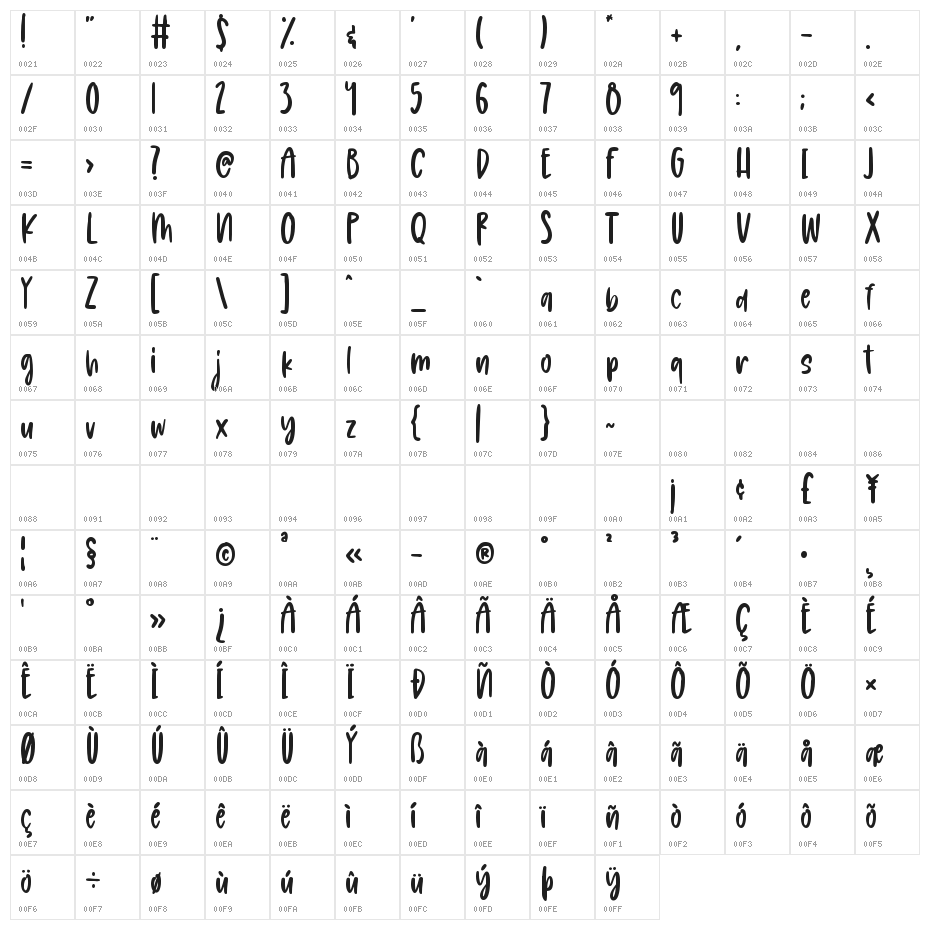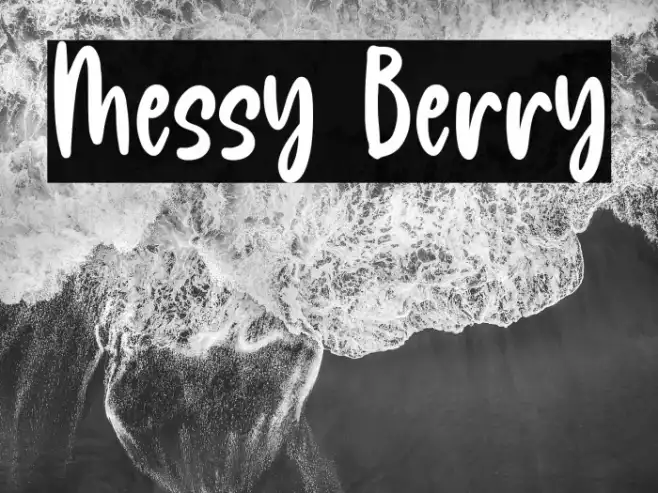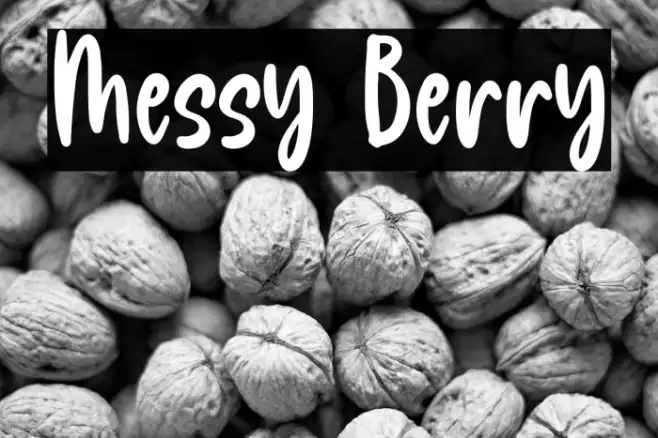
Messy Berry Font
Messy Berry Description
This playful and energetic font features a handwritten style with bold, rounded strokes that convey a sense of fun and creativity. The letters are slightly irregular, adding to the casual and informal feel. The uppercase and lowercase characters maintain a consistent style, with a slight slant that enhances the dynamic appearance. The numbers and special characters are designed to match the overall aesthetic, ensuring a cohesive look across all text. This font is perfect for projects that require a personal touch or a lively, youthful vibe.
| Proposed Projects | Ideal for greeting cards, children's books, playful branding, and social media graphics. |